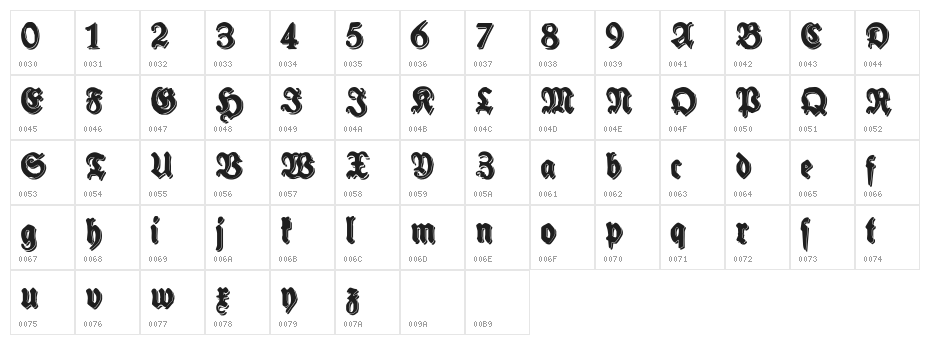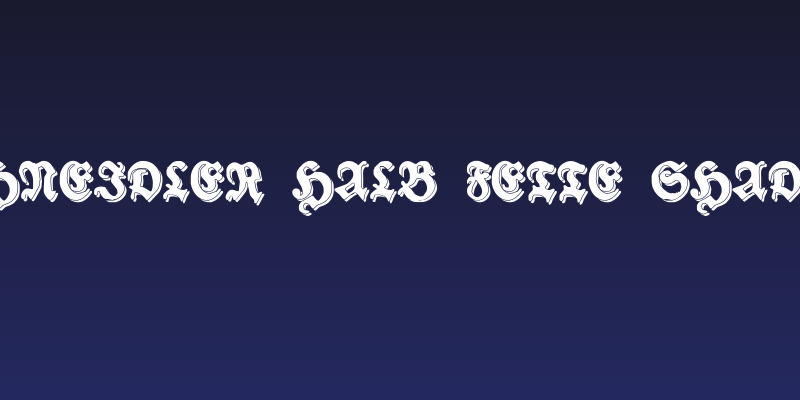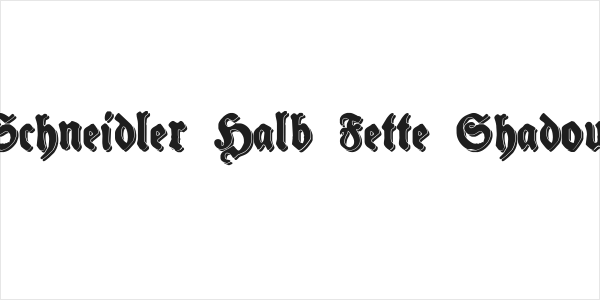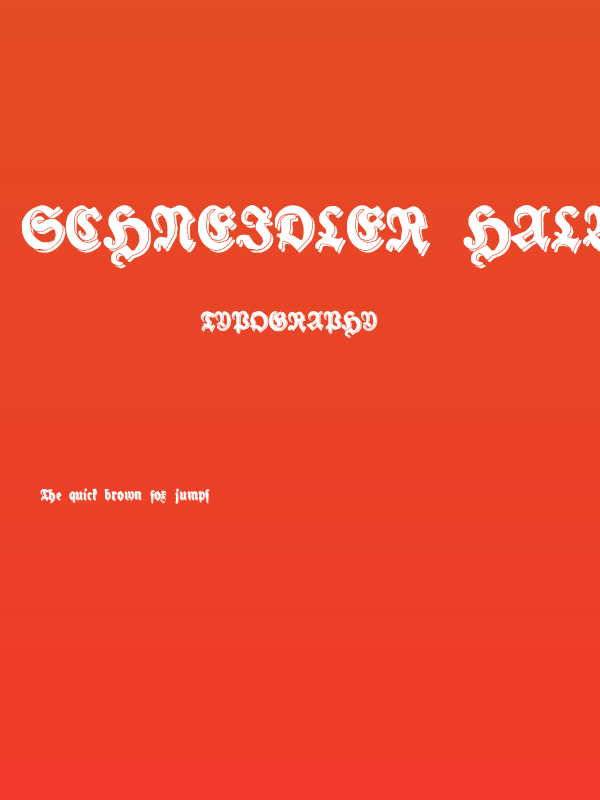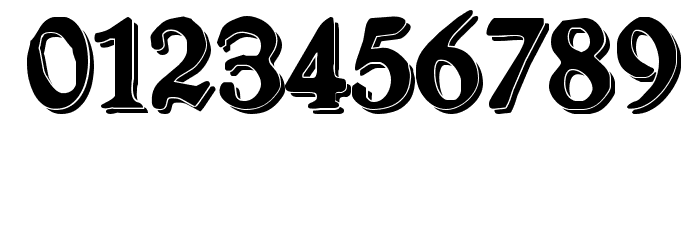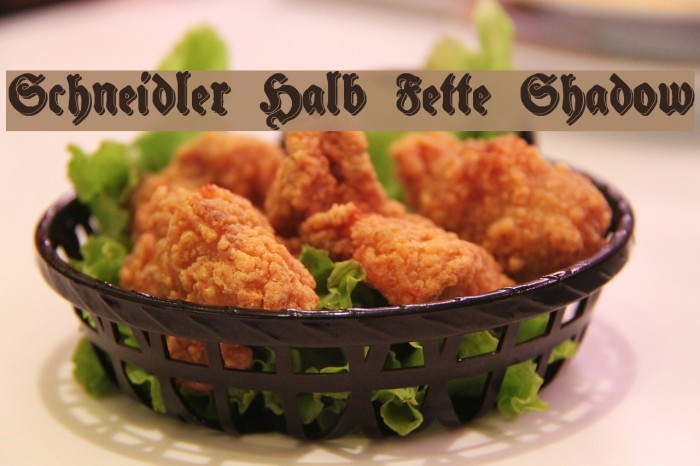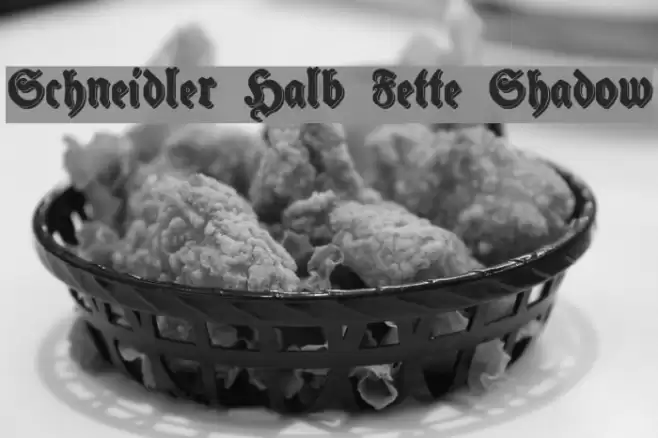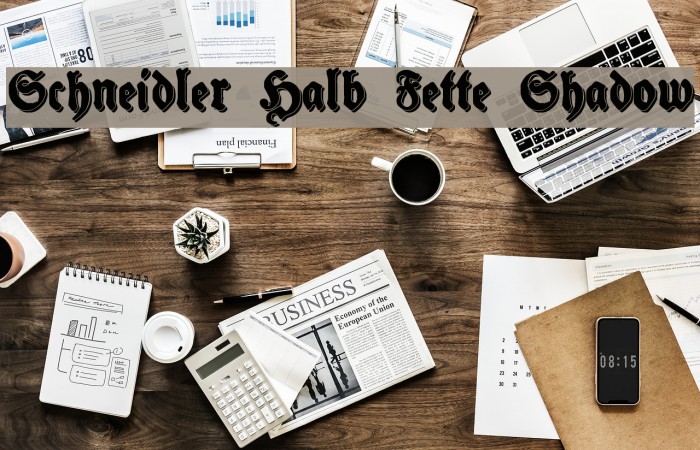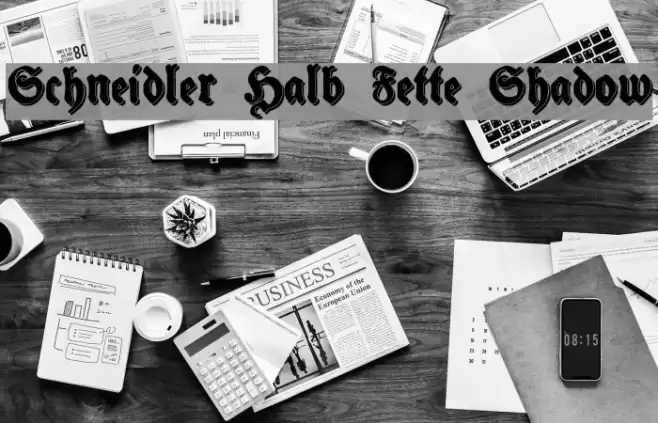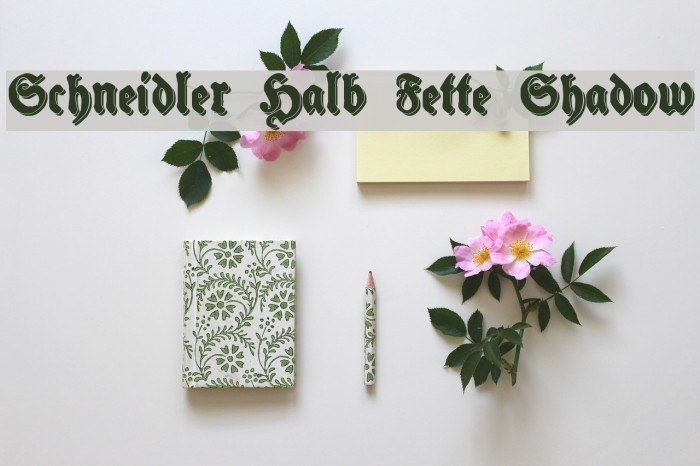
Schneidler Halb Fette Shadow Font
Schneidler Halb Fette Shadow Description
This font features a bold and dramatic style with a shadow effect that enhances its visual impact. The characters are designed with a strong blackletter influence, showcasing ornate and intricate details typical of traditional Gothic scripts. The uppercase letters are particularly elaborate, with sharp angles and flourishes that give them a regal appearance. The lowercase letters maintain the same decorative style, ensuring consistency throughout the typeface. Numbers and special characters are equally stylized, making them suitable for thematic designs. The shadow effect adds depth, making the text appear three-dimensional, which is ideal for creating standout headlines or titles.
| Overall Style | Vintage |
| Proposed Projects | Ideal for vintage-themed posters, book covers, branding for luxury products, or any project requiring a dramatic and historical aesthetic. |